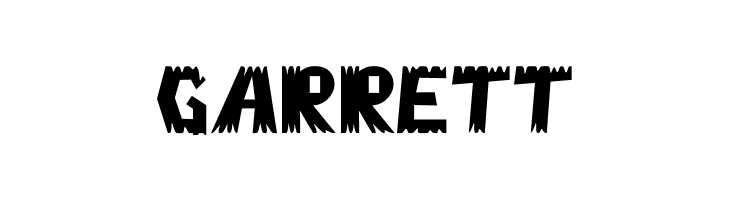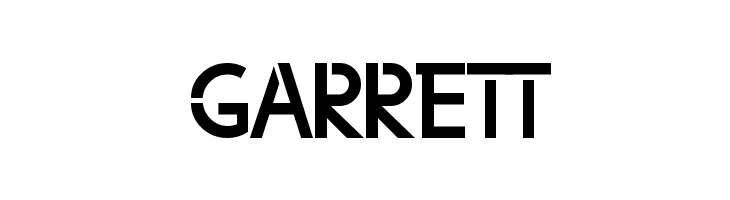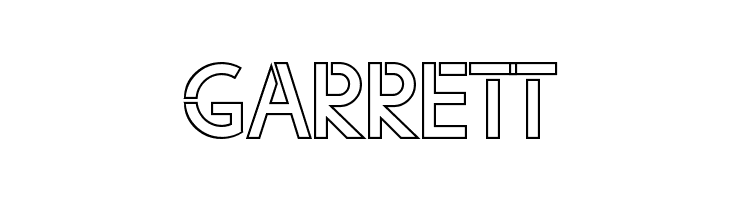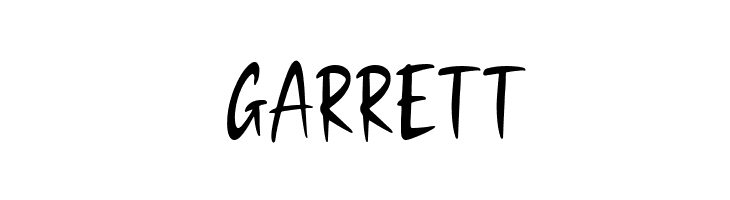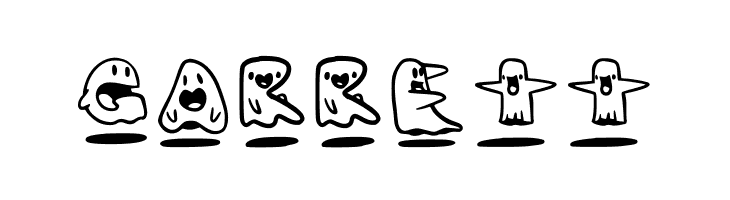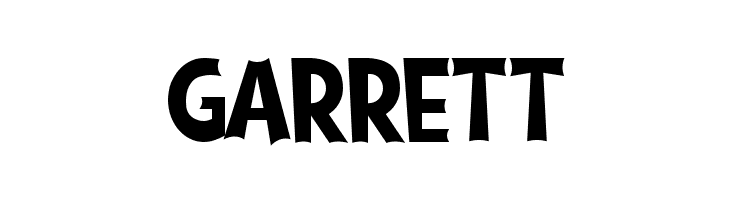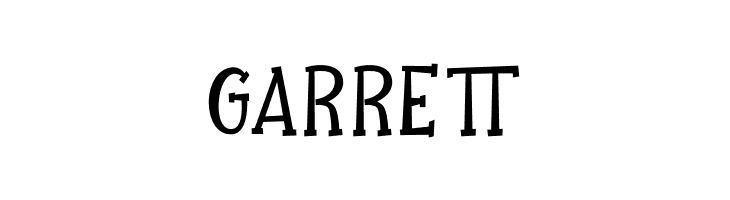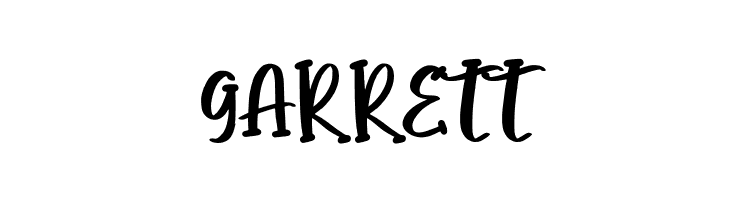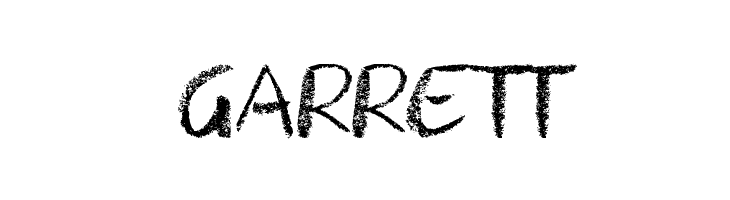
A textured, hand-drawn font with a whimsical and slightly eerie style.
A bold, expressive handwritten font with dynamic brush strokes.
A bold, jagged font with a spooky, haunted theme.
A bold, spooky font with jagged, dripping characters ideal for horror themes.
A bold, gothic-inspired font with sharp, angular edges and a dramatic aesthetic.
A bold, wavy font with a spooky, hand-drawn appearance.
A dynamic and elegant cursive script font with medium contrast.
A playful, cloud-themed font with a whimsical and airy design.
A playful, ghost-themed font with a hand-drawn, cartoonish style.
A playful, handwritten font with bold, dynamic strokes.
Not a valid font; only abstract swashes are present.
A bold, playful font with thick, rounded strokes and a lively appearance.
A bold, playful font with spooky skull motifs and thick strokes.
A modern, geometric outline font with a futuristic and stylish appearance.
A playful, hand-drawn font with bold, irregular characters.
A playful, hand-drawn font with whimsical, uneven strokes.
A playful, bold font with rounded, bubble-like characters and outlined style.
A bold, playful font with rounded, bubble-like characters.
A bold, playful font with rounded edges and a quirky, retro-modern style.
A playful, hand-drawn font with a spooky, whimsical aesthetic.
A casual, handwritten font with fluid and dynamic strokes.
A bold, brush-style font with a dynamic and textured appearance.
A bold, brush-style font with dynamic and energetic character shapes.
A bold, italic font with a ghostly, textured appearance, perfect for spooky themes.
A dynamic, hand-drawn font with bold, varied strokes and a playful edge.
A spooky, gothic font with elongated, ghostly characters.
A bold, handwritten-style font with thick strokes and a dynamic, casual feel.
A bold, handwritten font with smooth, connected letters and a casual style.
A bold, sketch-style font with diagonal hatching for a textured look.
A gothic, jagged font with a tattoo-like, hand-drawn aesthetic.
A spooky, dripping font with a hand-drawn, horror-inspired style.
A spooky, dripping font ideal for Halloween themes.
A dynamic handwritten font with fluid strokes and a modern feel.